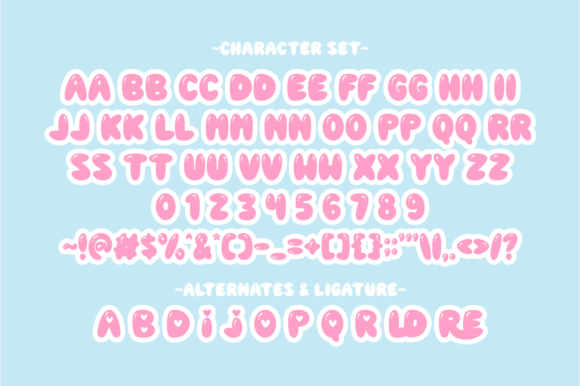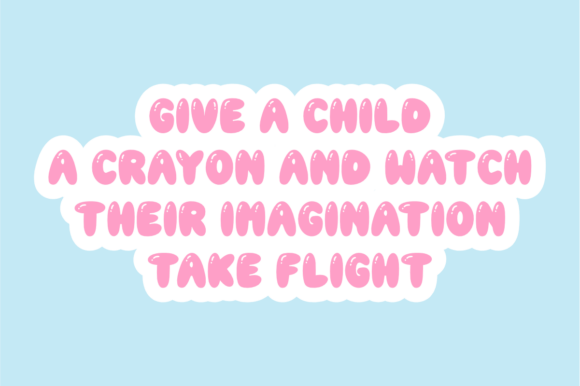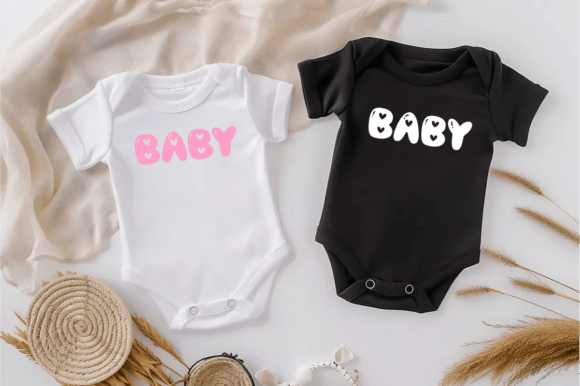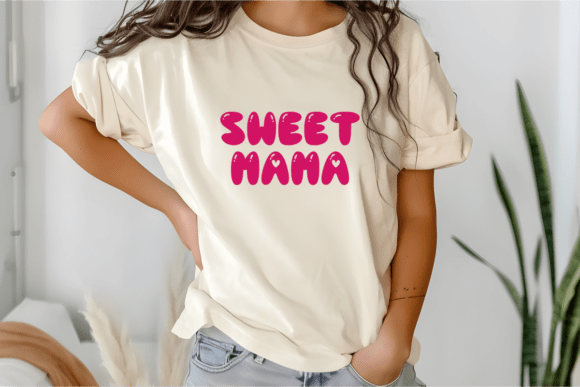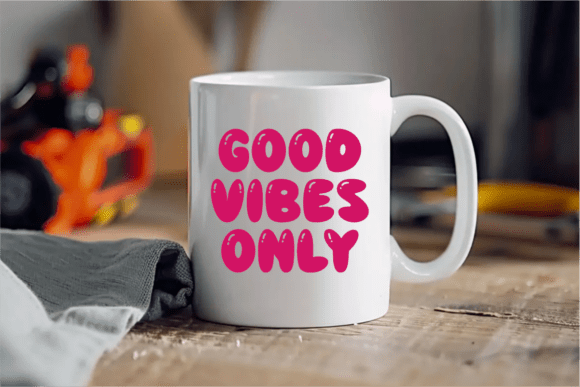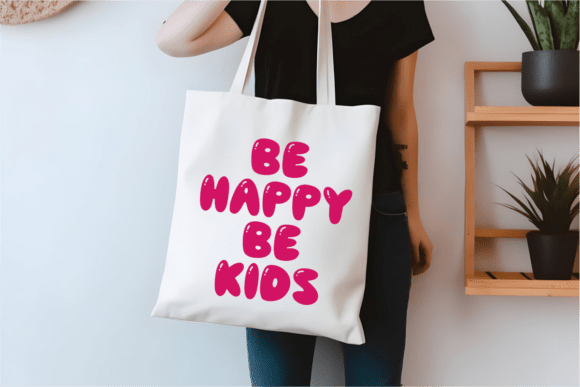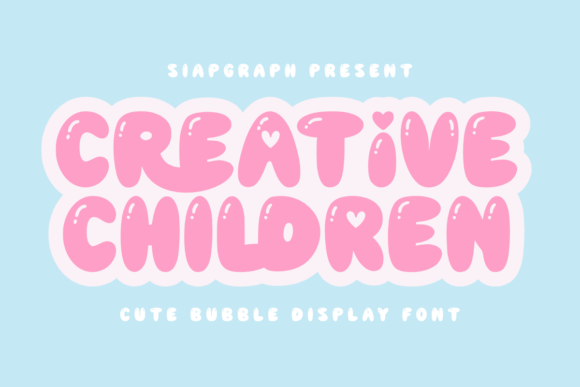
Introducing Creative Children Font: The Ultimate Playful Display Font for Kids’ Designs
Are you a designer or crafter looking for a font that can add a burst of youthful energy and whimsical charm to your designs? Look no further than Creative Children, an adorable and playful bubble display font that’s perfect for creating engaging and eye-catching projects for young audiences.
The Charm of Creative Children Font
Creative Children font is a plump and rounded display font that features delightful heart accents, making it truly endearing and perfect for kids’ designs. Its friendly and approachable style makes it exceptionally well-suited for products targeting end-users who enjoy crafting with tools like Cricut and for sublimation projects.
Whether you’re creating vibrant stickers, enchanting planner elements for school, eye-catching t-shirt designs for little ones, sweet product labels for children’s goods, cheerful birthday invitations, personalized tumblers, or a plethora of other engaging crafts, Creative Children font is the perfect choice.
Endless Design Possibilities with Creative Children Font
With Creative Children font, you can add a dose of fun and cheerfulness to a wide variety of creative projects aimed at kids. Here are some design ideas to get you started:
- Vibrant Stickers: Create eye-catching stickers for kids’ laptops, water bottles, or journals with Creative Children font.
- Enchanting Planner Elements: Add a touch of whimsy to planner elements for school, such as headers, titles, and decorations.
- Eye-Catching T-Shirt Designs: Design fun and playful t-shirt designs for little ones with Creative Children font.
- Sweet Product Labels: Create adorable product labels for children’s goods, such as toys, candies, or craft supplies.
- Cheerful Birthday Invitations: Design personalized birthday invitations that are sure to delight kids and parents alike.
- Personalized Tumblers: Add a touch of fun and personality to personalized tumblers for kids.
Why Choose Creative Children Font?
So, why choose Creative Children font for your kids’ designs? Here are just a few reasons:
- Unique and Playful Style: Creative Children font has a distinctively friendly and approachable style that’s perfect for kids’ designs.
- Easy to Read: The plump and rounded letterforms make it easy to read, even for young children.
- Versatile: Creative Children font can be used for a wide range of design projects, from stickers and planner elements to t-shirt designs and product labels.
- Perfect for Cricut and Sublimation Projects: Creative Children font is exceptionally well-suited for products targeting end-users who enjoy crafting with tools like Cricut and for sublimation projects.
Tips for Using Creative Children Font
Here are some tips for using Creative Children font in your designs:
- Pair with Other Fonts: Pair Creative Children font with other fonts to create a unique and playful combination.
- Experiment with Colors: Experiment with different colors and color combinations to add an extra touch of fun and whimsy to your designs.
- Add Graphics and Illustrations: Add graphics and illustrations to enhance your designs and make them more engaging for kids.
In conclusion, Creative Children font is the perfect choice for designers and crafters looking to add a burst of youthful energy and whimsical charm to their kids’ designs. With its unique and playful style, ease of readability, and versatility, Creative Children font is sure to become a favorite in your design arsenal.